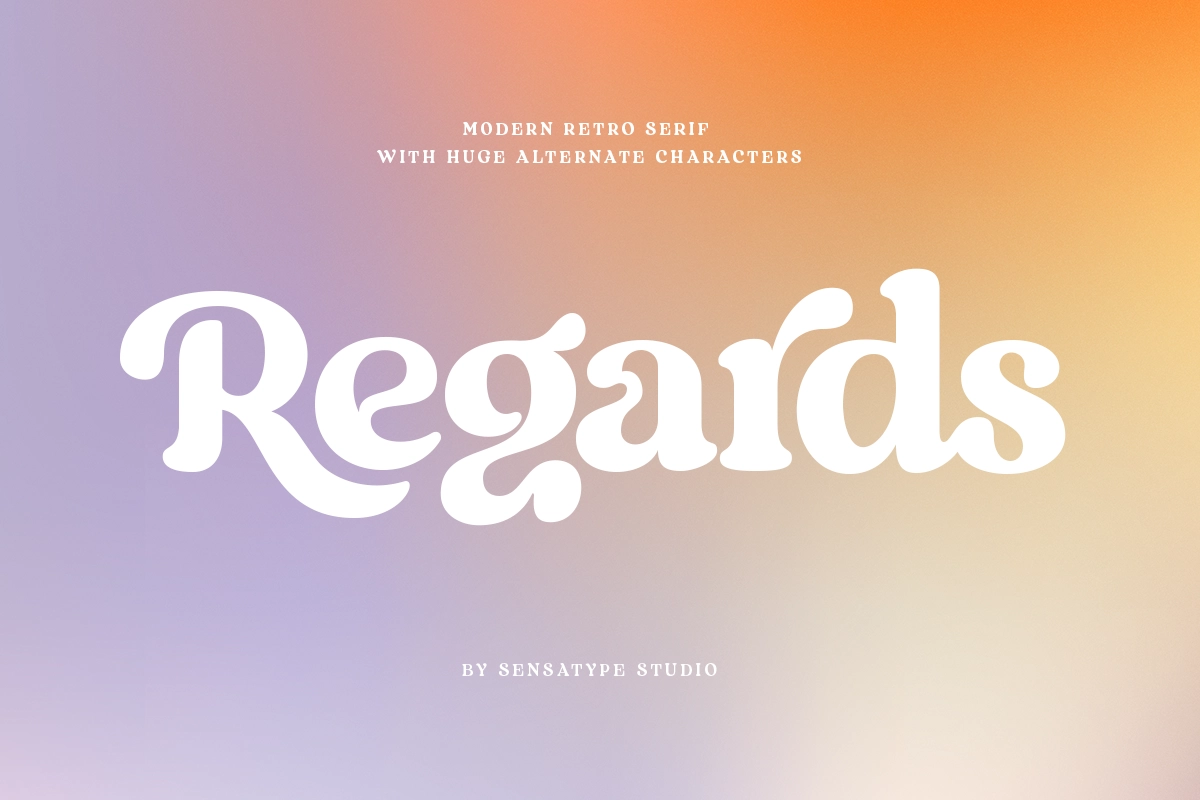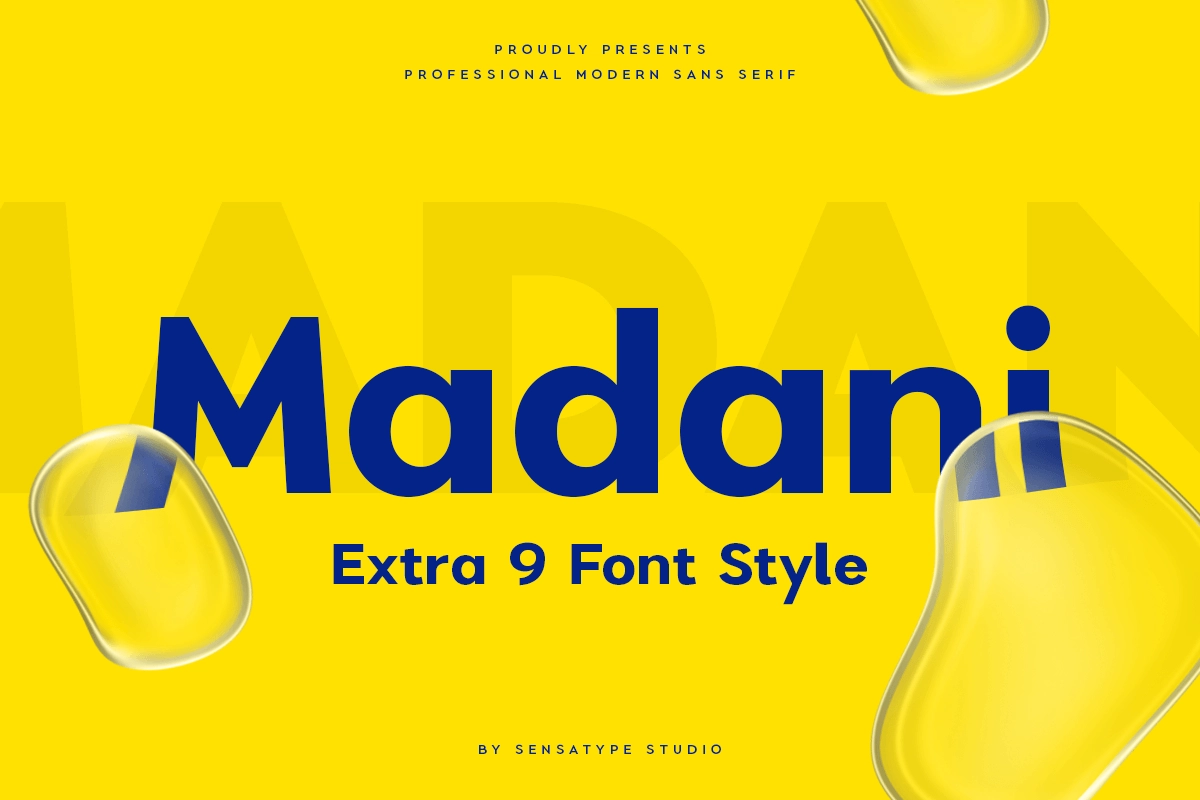
July 2026 Design Ideas, Holidays, and Font Inspiration
July 2026 is a vibrant and high-energy month for seasonal design, offering exciting opportunities for graphic designers, brand teams, and content creators to create bold, engaging, and socially driven campaigns. With key moments like Independence Day, World Emoji Day, and International Friendship Day, July opens up a wide creative range, from bright expressive visuals and playful digital content to warm human-centered storytelling, making it an ideal time to explore dynamic color palettes, personality-driven branding, and modern typography that brings campaigns to life in a visually impactful and highly shareable way.
July 2026 Design Ideas, Holidays, and Font Inspiration
July stands at the peak of seasonal energy, making it one of the most vibrant months for design exploration. It carries a natural sense of warmth, openness, and celebration that translates easily into visual work. For brands, creative teams, and content creators, July 2026 offers an opportunity to build campaigns that feel more expressive, more social, and more emotionally engaging. Some of the most relevant design moments to pay attention to are Independence Day on 4 July, World Emoji Day on 17 July 2026, and International Friendship Day on 30 July 2026.
For designers, this month has a very distinctive visual spectrum. July can feel bold, bright, and energetic, but it can also shift into something more personal, warm, and human-centered. That contrast is what makes it useful. One campaign can lean loud and celebratory, while another can feel soft and emotionally driven. If you are building seasonal content, July gives you room to create visuals that feel alive, engaging, and highly shareable without losing direction.
Why July?
July often works as a momentum builder. By this point in the year, audiences are more responsive to content that feels light, engaging, and visually dynamic. This makes it a strong month for refreshing campaign direction, experimenting with more expressive layouts, and introducing a more playful or human-centered tone. It is not just about following a summer aesthetic, but about using that seasonal energy to create visuals that feel active and socially connected.
From a design perspective, July supports several directions at once. It works for bold identity-driven campaigns with strong typography, playful and digital-first visuals that rely on expressive elements, and softer storytelling content that focuses on connection and relatability. This range allows designers to move between high-impact visuals and more intimate compositions without making the work feel inconsistent.
For lifestyle, entertainment, food, and digital brands, July is especially useful because it feels socially active and visually open. There is room for color, personality, and message-led design without making the visuals feel too heavy. Typography becomes a key element here, not just for readability, but as a central part of the visual voice.
Best Alternative Fonts For July
Madani - Professional Modern Sans Serif
Madani is a professional modern sans serif font designed to deliver clarity, strength, and a confident visual presence. With its clean structure and well-balanced proportions, this typeface works perfectly for campaign headlines, branding systems, and promotional content. It creates a strong and modern visual tone that aligns well with bold and structured visuals, making it highly suitable for statement-driven campaigns in July.
Regards - Modern Retro Serif
Regards is a modern retro serif font that blends nostalgic character with a contemporary edge. Its distinctive serif details and slightly playful structure make it ideal for designs that want to feel expressive yet stylish. This typeface works well for creative campaigns and social content, especially when you want to introduce personality while maintaining a refined visual direction.
Fashiony - Modern Script Font
Fashiony is a modern script font crafted to bring elegance, warmth, and a personal touch into your typography. With its smooth flow and stylish curves, this typeface is perfect for storytelling content, quotes, and emotionally driven campaigns. It helps create a more intimate and human-centered visual tone, making it especially relevant for connection-focused content like friendship and community campaigns.
Rudge - Classy Elegant Luxury Font
Rudge is a classy elegant luxury font designed to elevate your visuals with a refined and sophisticated look. Its graceful letterforms and premium feel make it ideal for high-end branding, editorial layouts, and fashion-oriented campaigns. This typeface introduces a polished contrast to July’s more playful visuals, helping create balance within your overall design direction.
For designers, that means July is not a one-note month. It is a month with a wide visual spectrum. If you approach it with a clear campaign angle, strong typography, and intentional color direction, it can become one of the most engaging and visually dynamic moments in the design calendar.